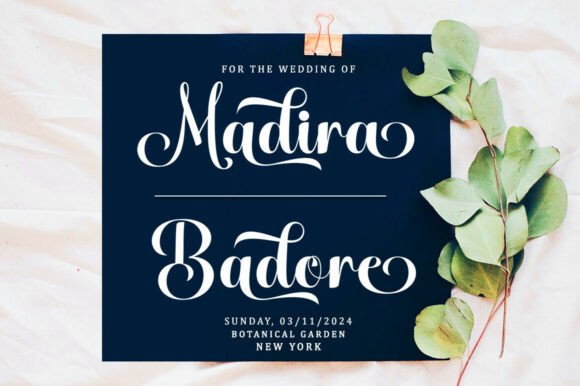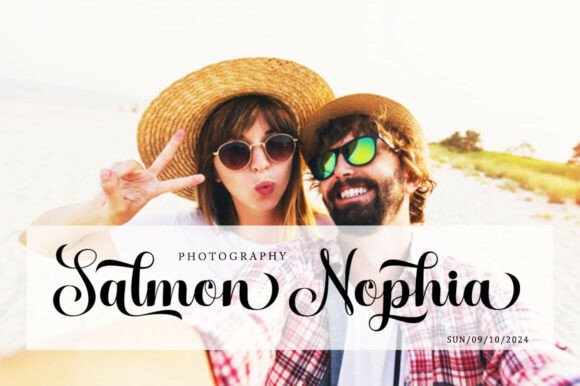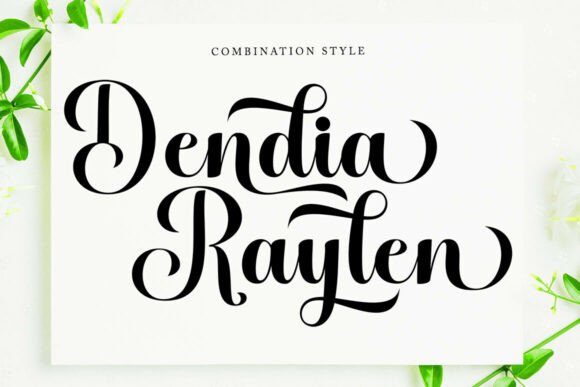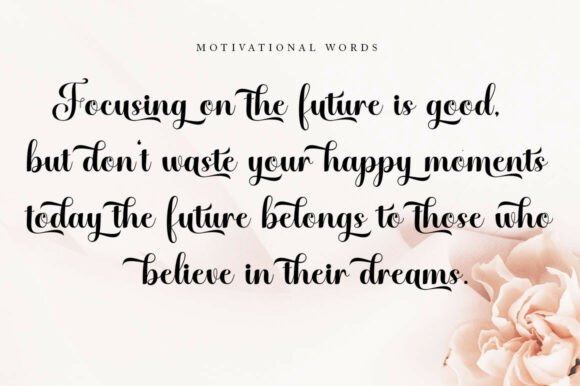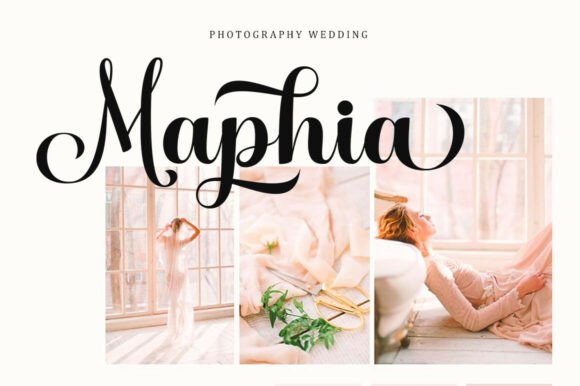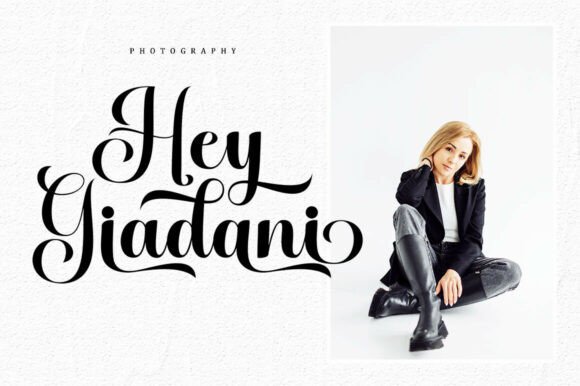
The Elegance of Baba Badita: A Font That Elevates Creativity
Have you ever been in the middle of a design project, and suddenly, you’re stuck on finding the perfect font? I recall a recent experience where I was working on a wedding invitation design, and my client requested a font that was both elegant and unique. After hours of searching, I stumbled upon Baba Badita, a beautiful script font that instantly caught my attention. In this article, I’ll share my journey with Baba Badita, its features, and how you can make the most of it in your creative projects.
A Personal Review of Baba Badita
What I Love About Baba Badita ✨
• ✅ Elegant and unique script style that’s perfect for formal designs
• ✅ Extensive range of OpenType features, including glyphs and stylistic alternates
• ✅ Versatile and can be used for various design projects, from invitations to novels
While Baba Badita is an excellent font, there are a few minor limitations to consider:
• 🤔 May not be the best fit for very informal or playful designs, as it’s a classic script font
• ⚠️ Some users may find the font a bit too ornate for certain projects
The Backstory of Baba Badita
While the origins of Baba Badita are shrouded in mystery, it’s believed that this font was inspired by traditional calligraphy and script styles. The designer aimed to create a font that was both elegant and unique, with a touch of sophistication. Whether or not this story is true, one thing is certain: Baba Badita is a font that’s sure to elevate your creative projects.
Q: What type of designs is Baba Badita best suited for?
A: Baba Badita is perfect for formal designs, such as invitations, wedding cards, logos, and branding materials. It’s also suitable for novels, magazines, and other publications.
Q: Is Baba Badita a difficult font to read?
A: No, Baba Badita is a highly legible font, even at small font sizes. Its classic script style makes it easy to read, even for extended periods.